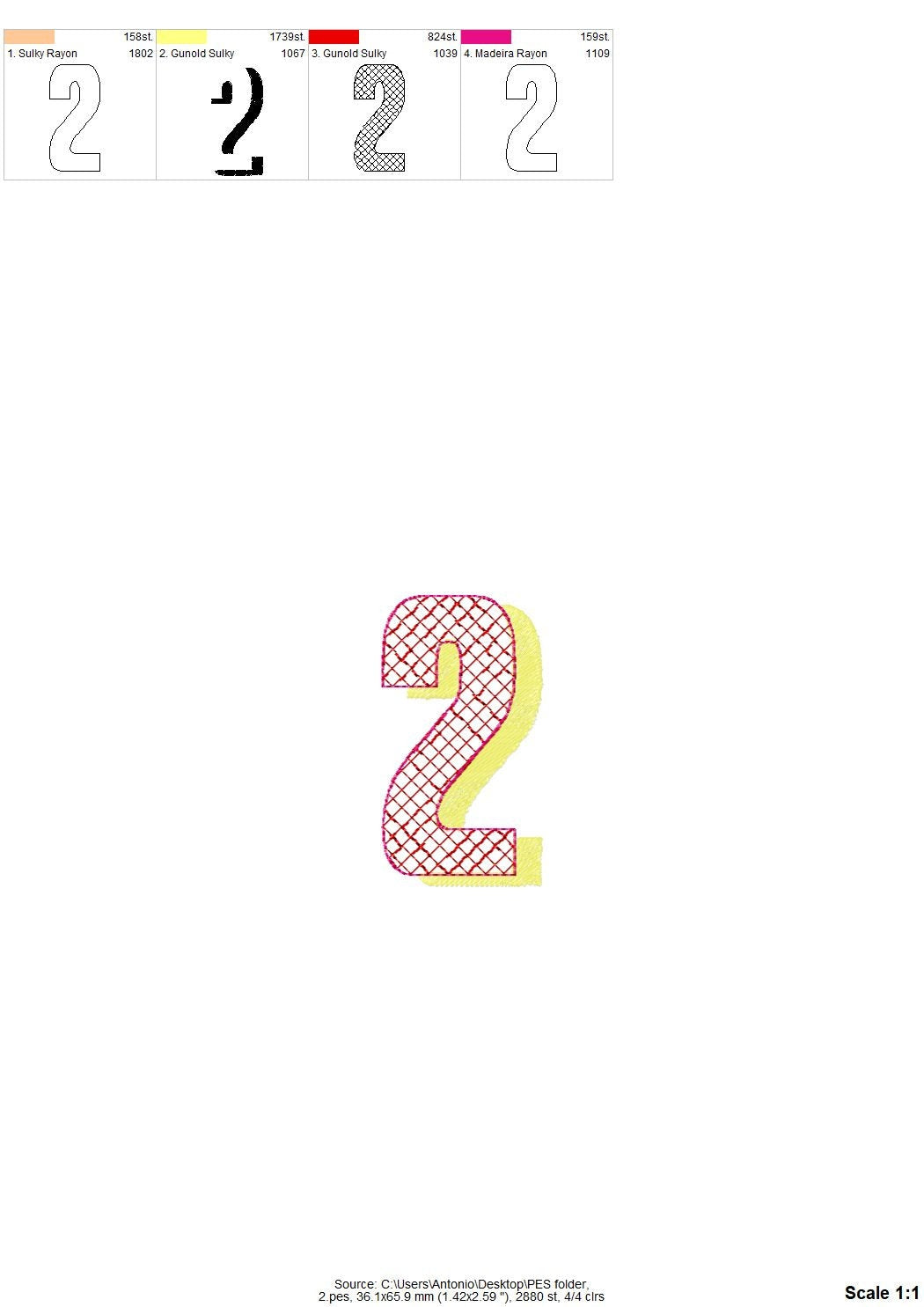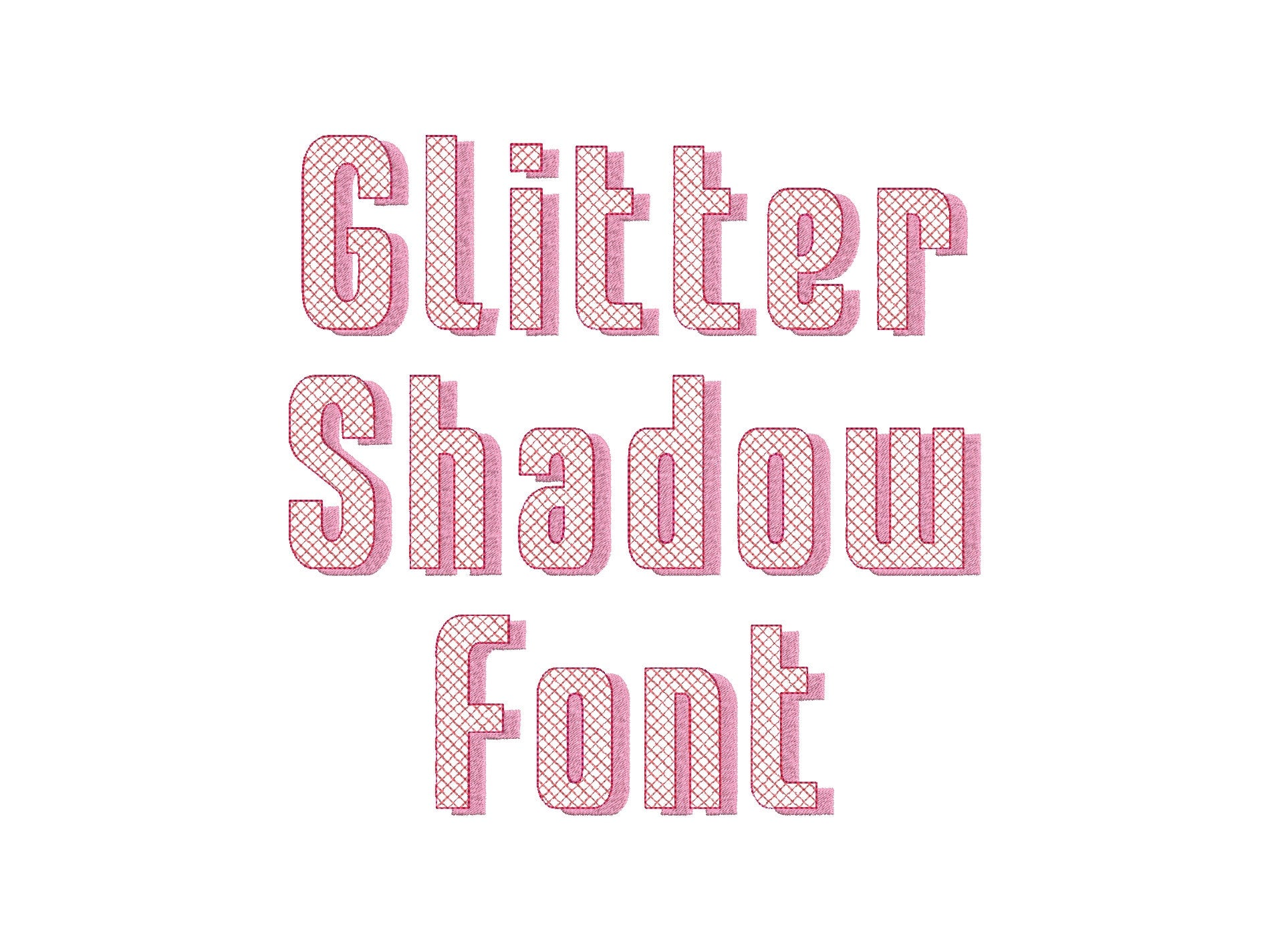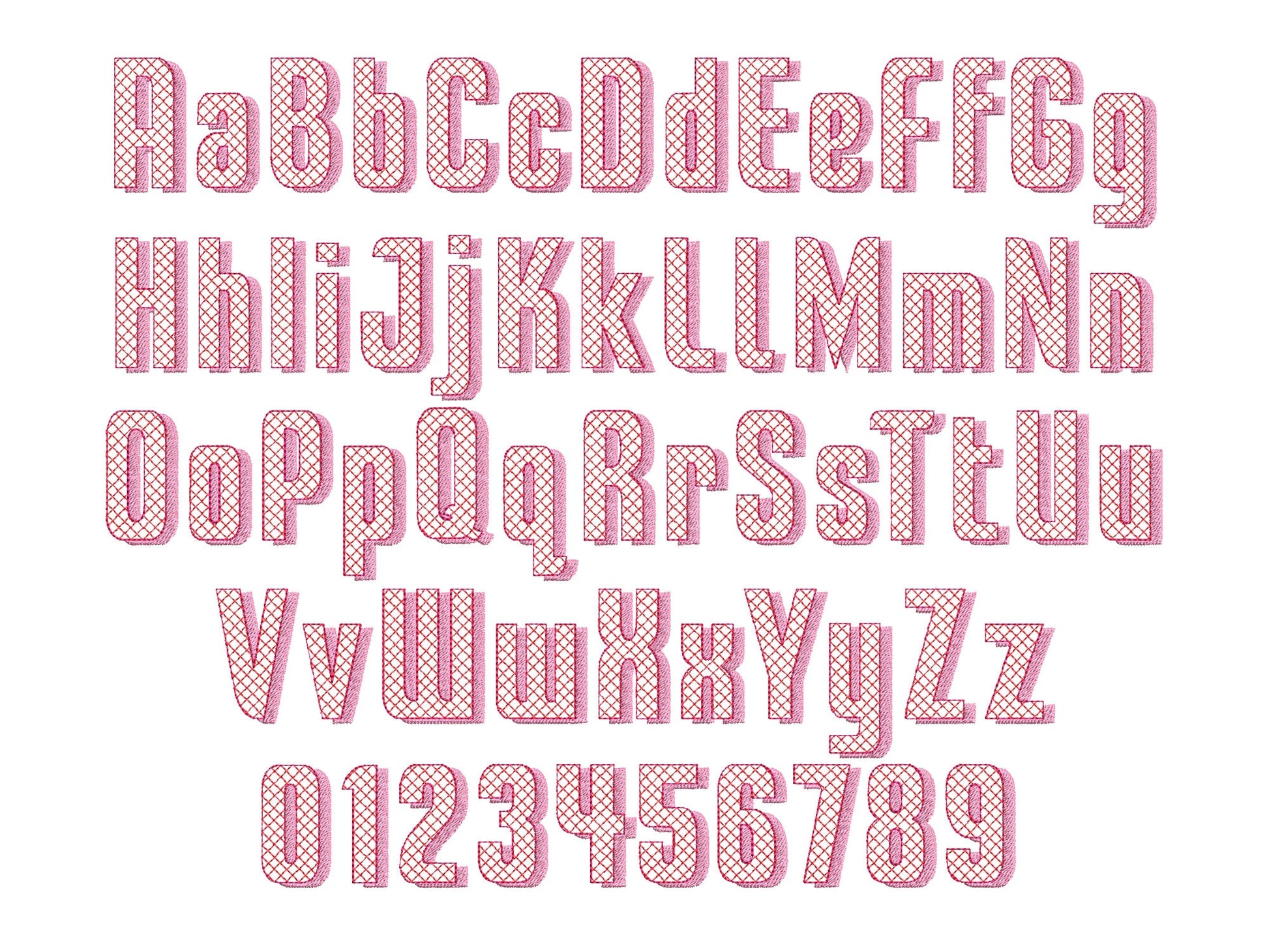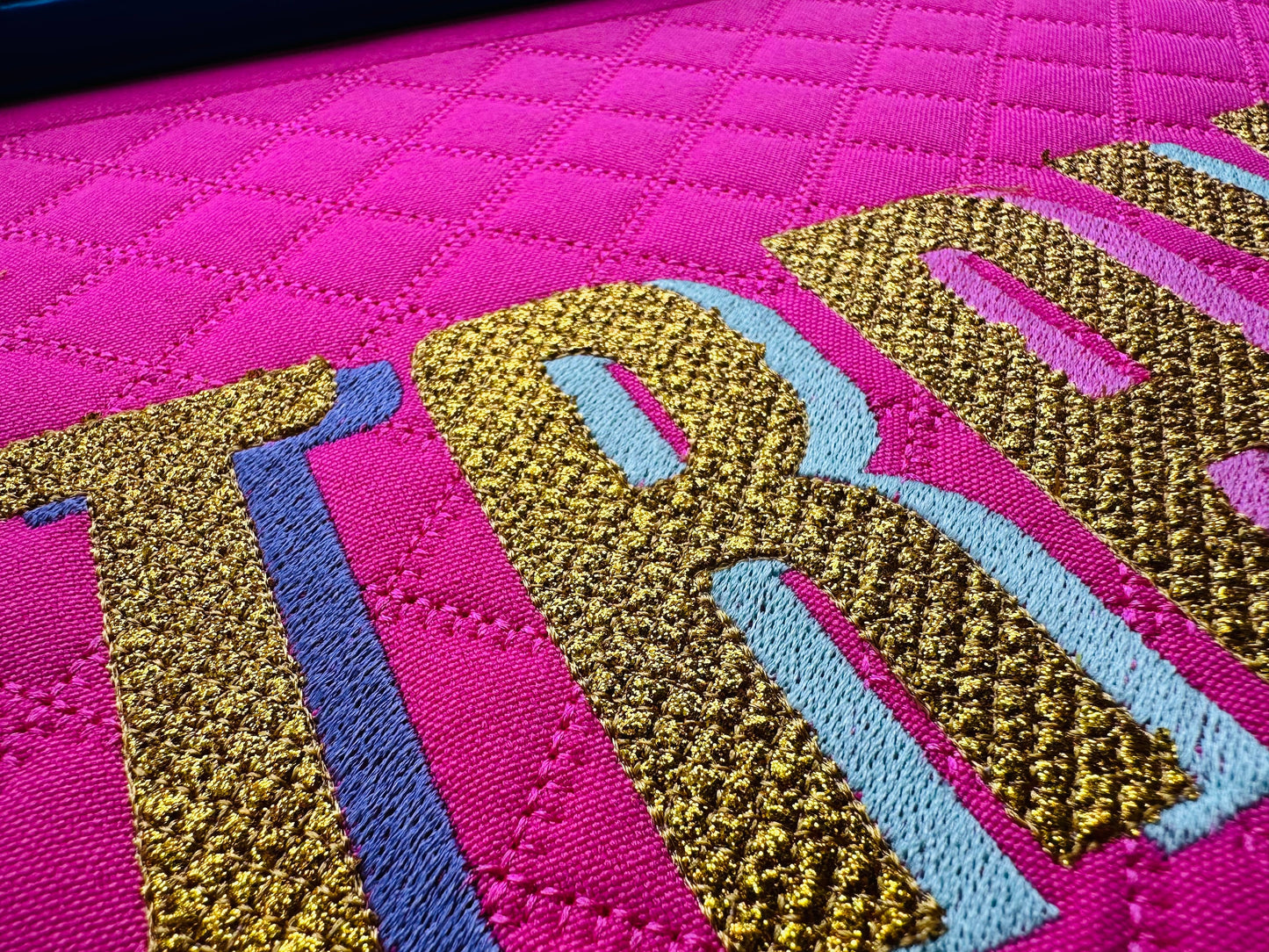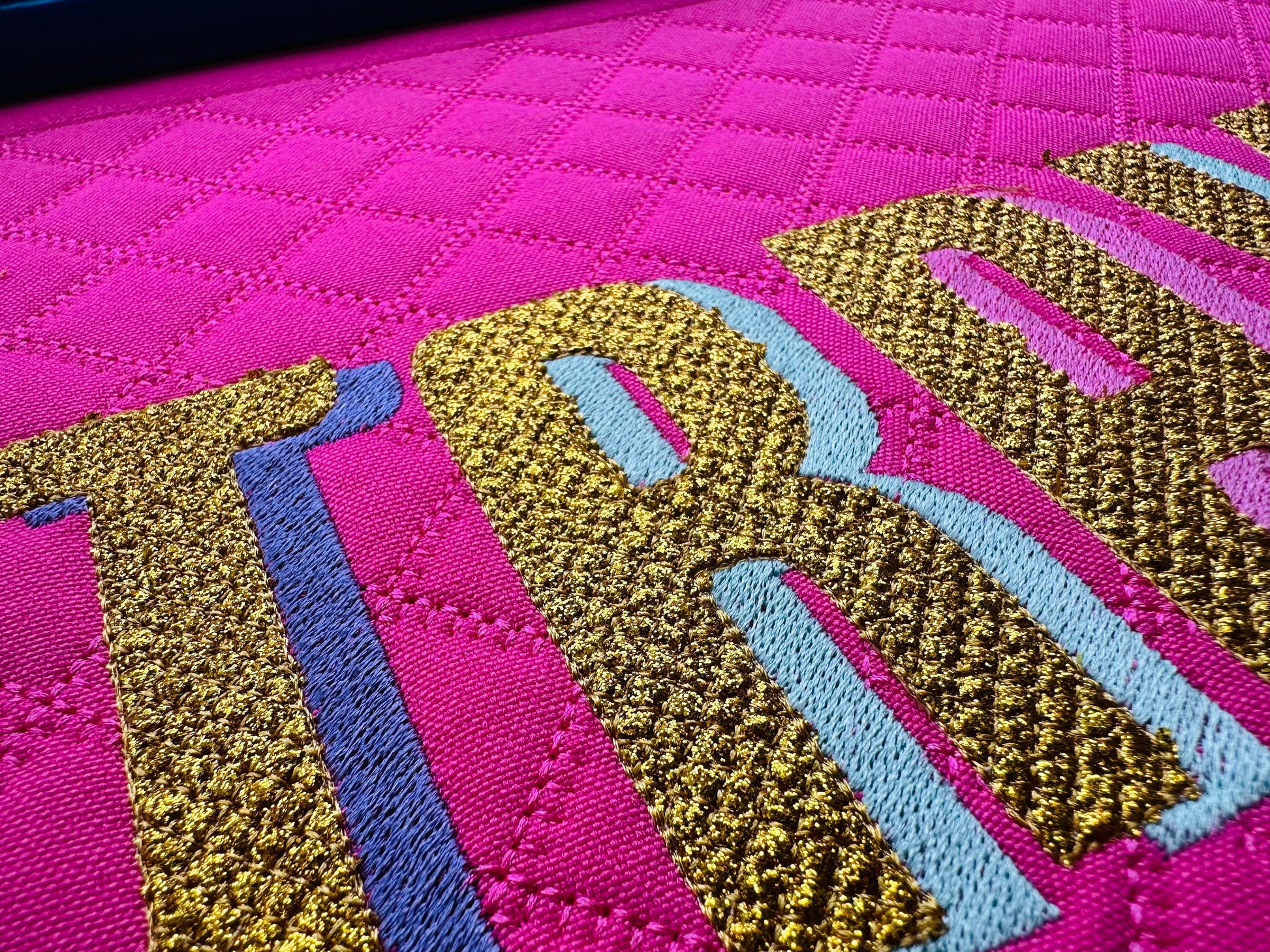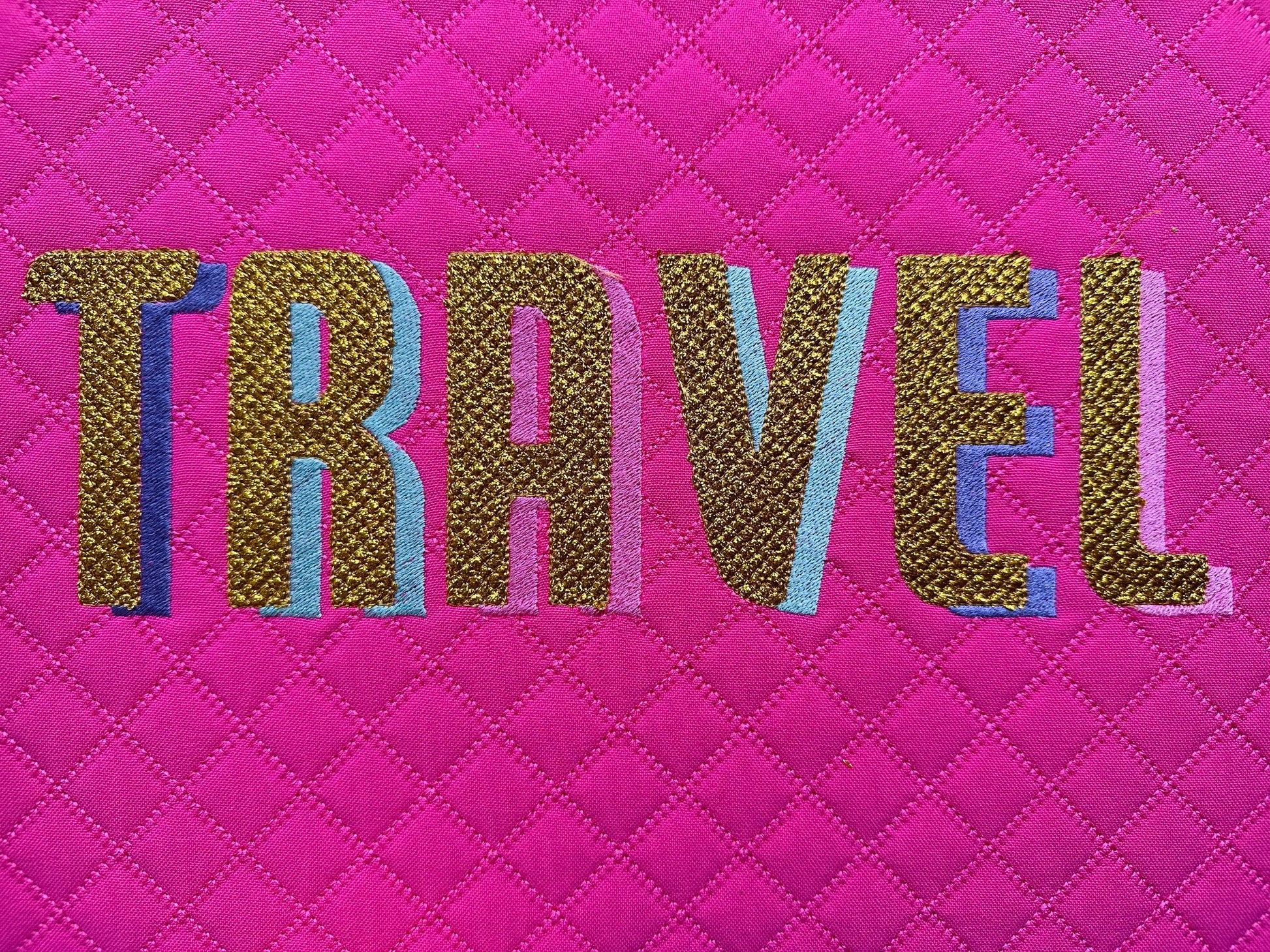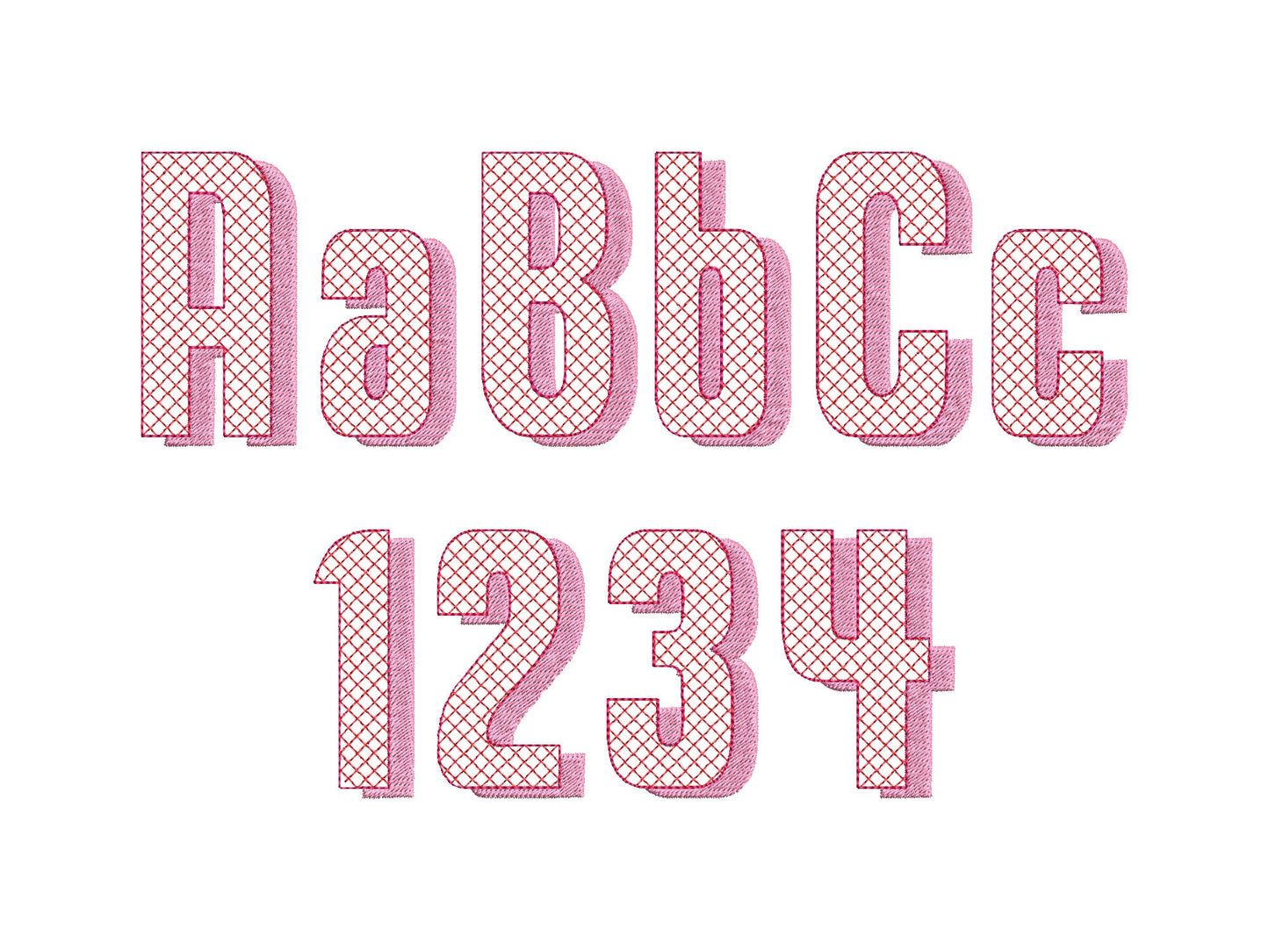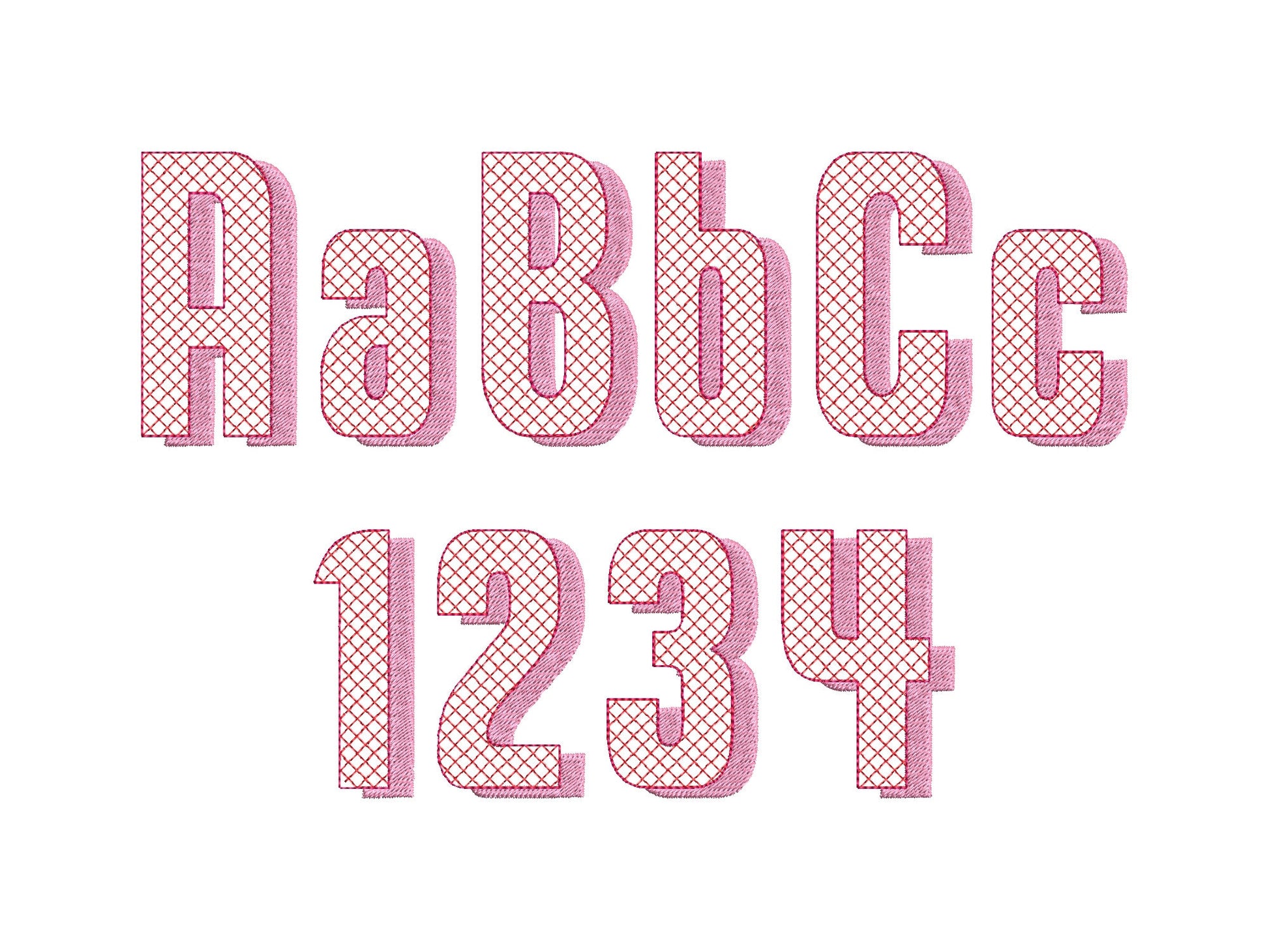
Or click to open the linkA shadow font made for glitter heat transfer vinyl. Sparkly for names and monograms on shirts, bags and party outfits.
Uppercase and lowercase letters and numbers 0 to 9 in five sizes: 1.8, 2.3, 2.8, 3.6 and 4.2 inches. Press the glitter vinyl on with a heat press or iron.